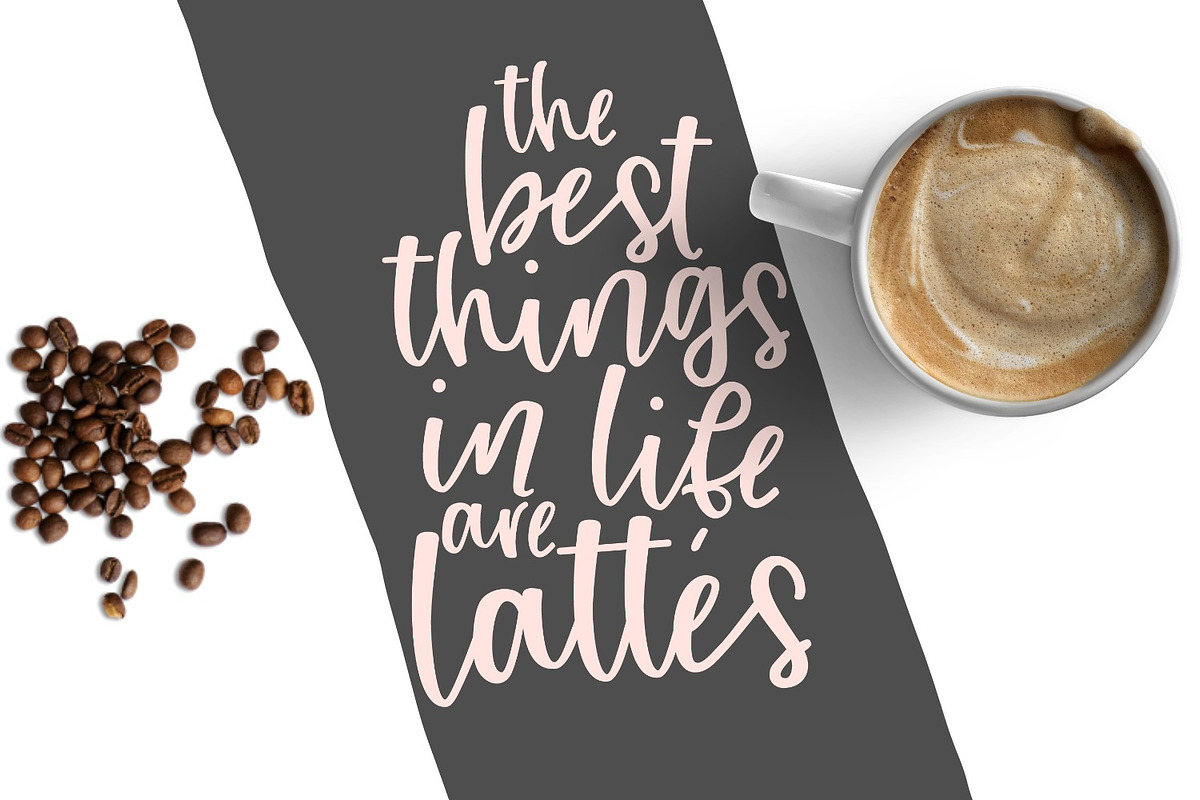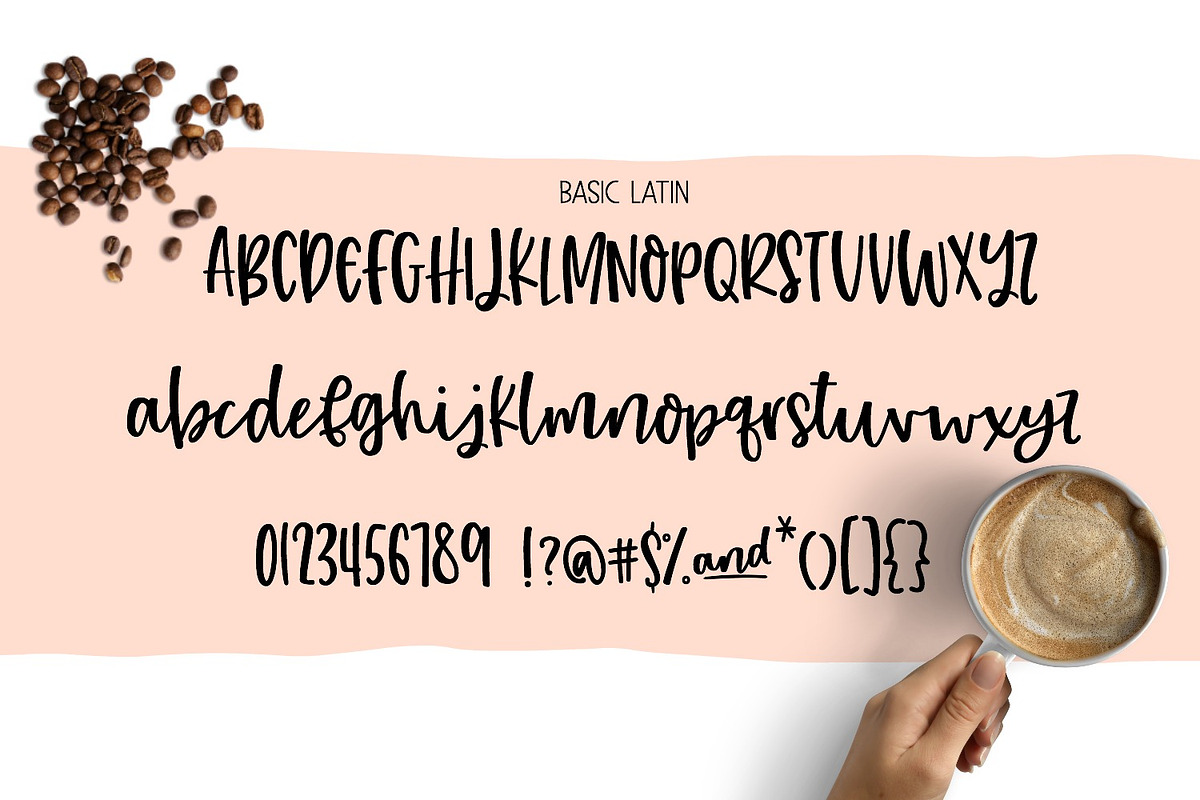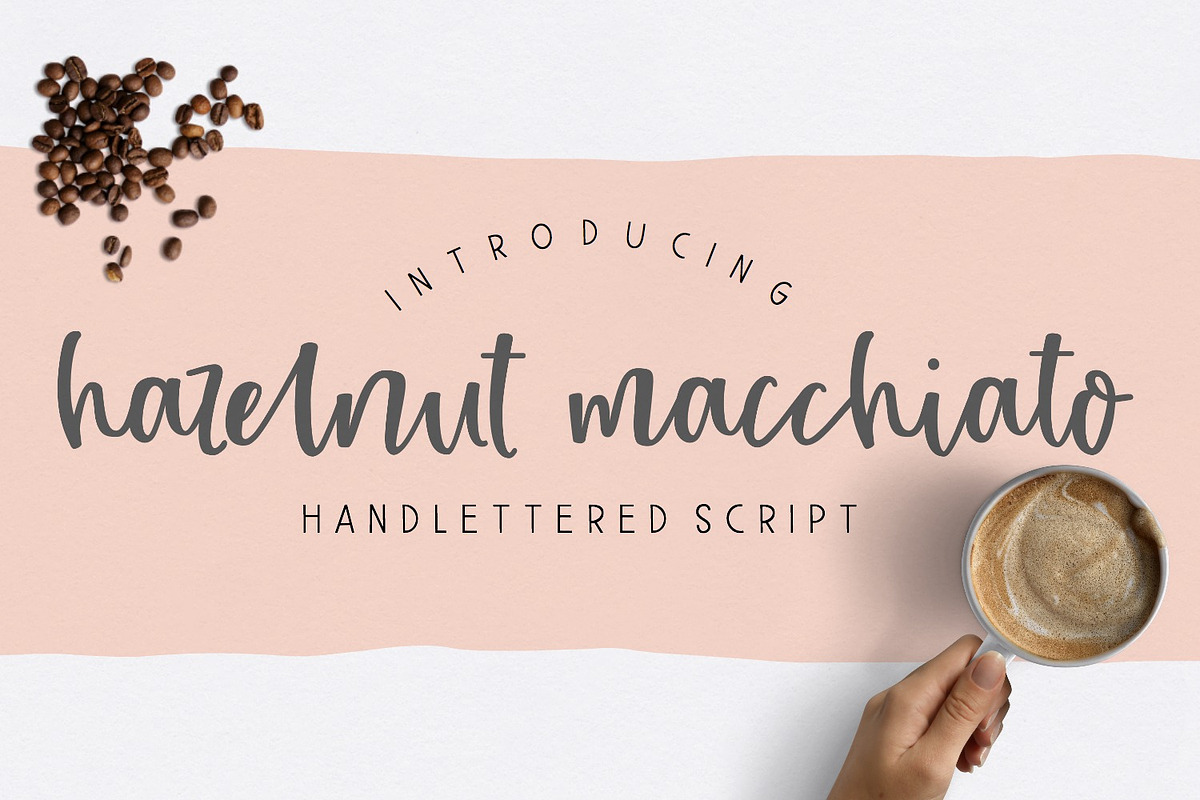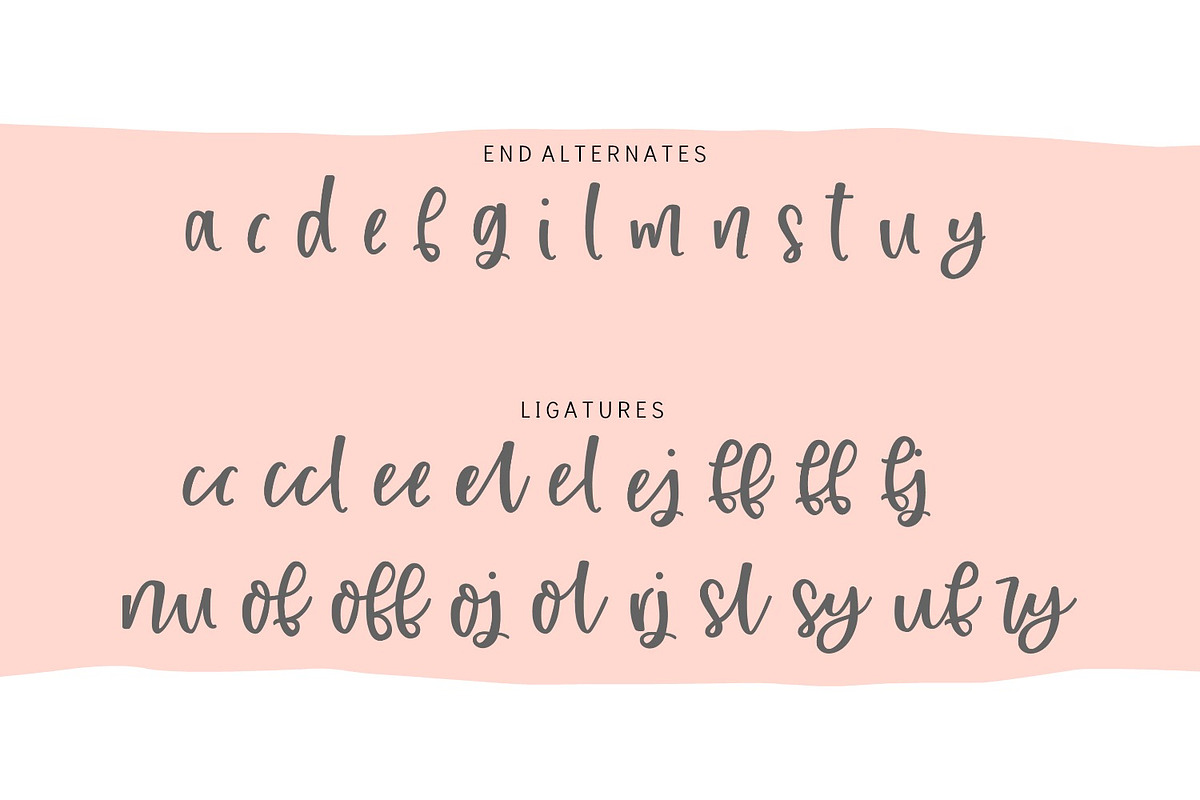
Hazelnut Macchiato Script Font
Introducing Hazelnut Macchiato: a hand lettered script font with a sweet, charming personality!
Hazelnut Macchiato Script Font by Sabrina Schleiger Design fits naturally into Branding, posters, packaging, typography.